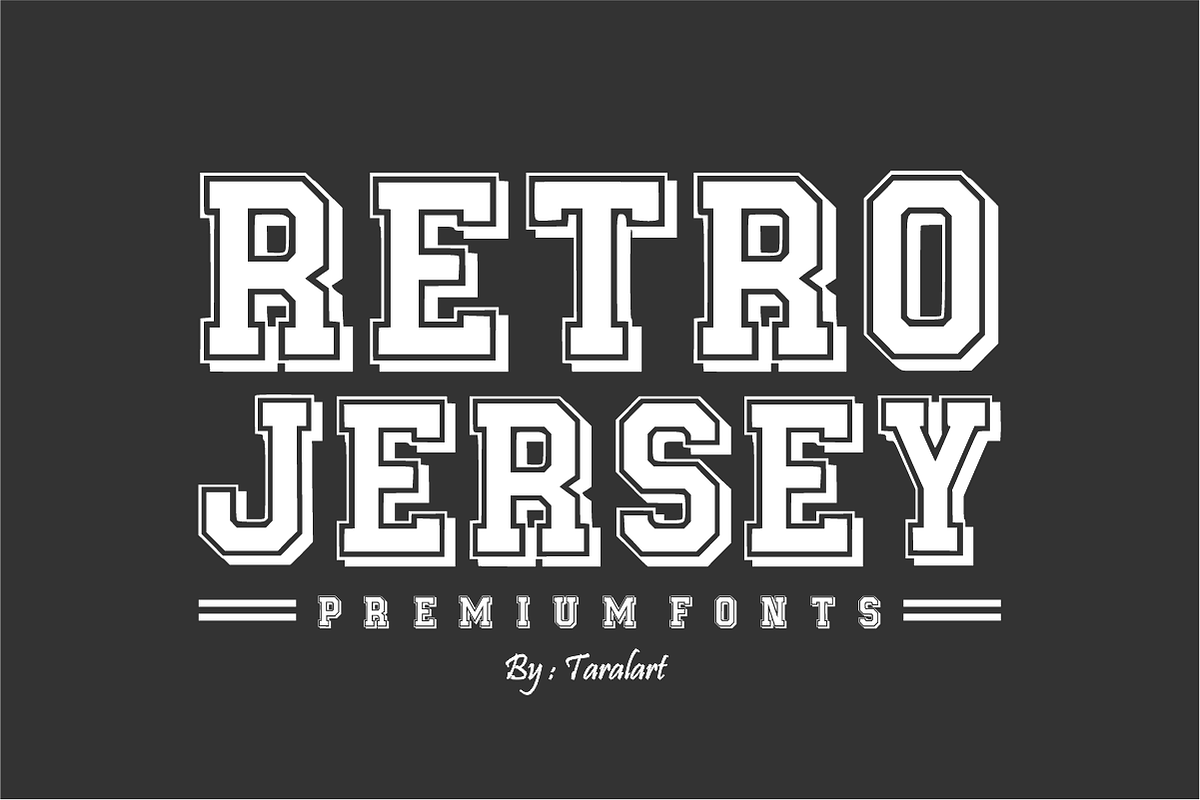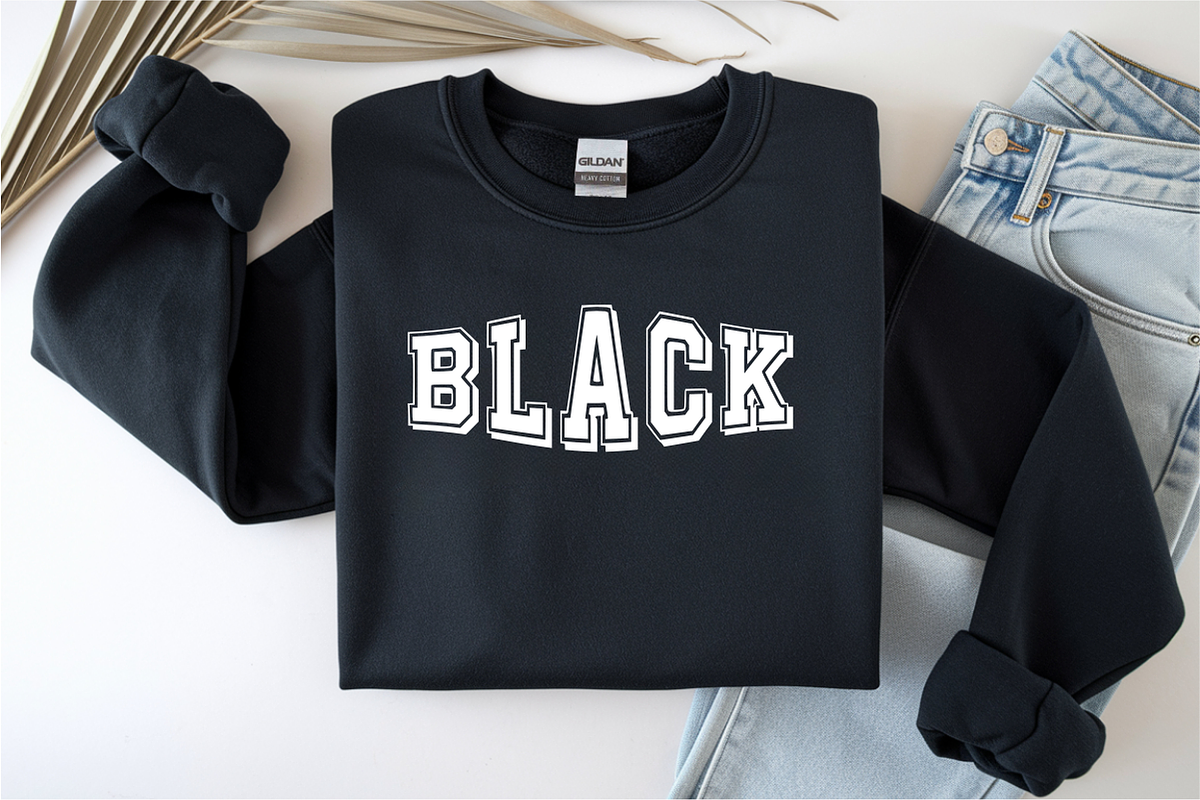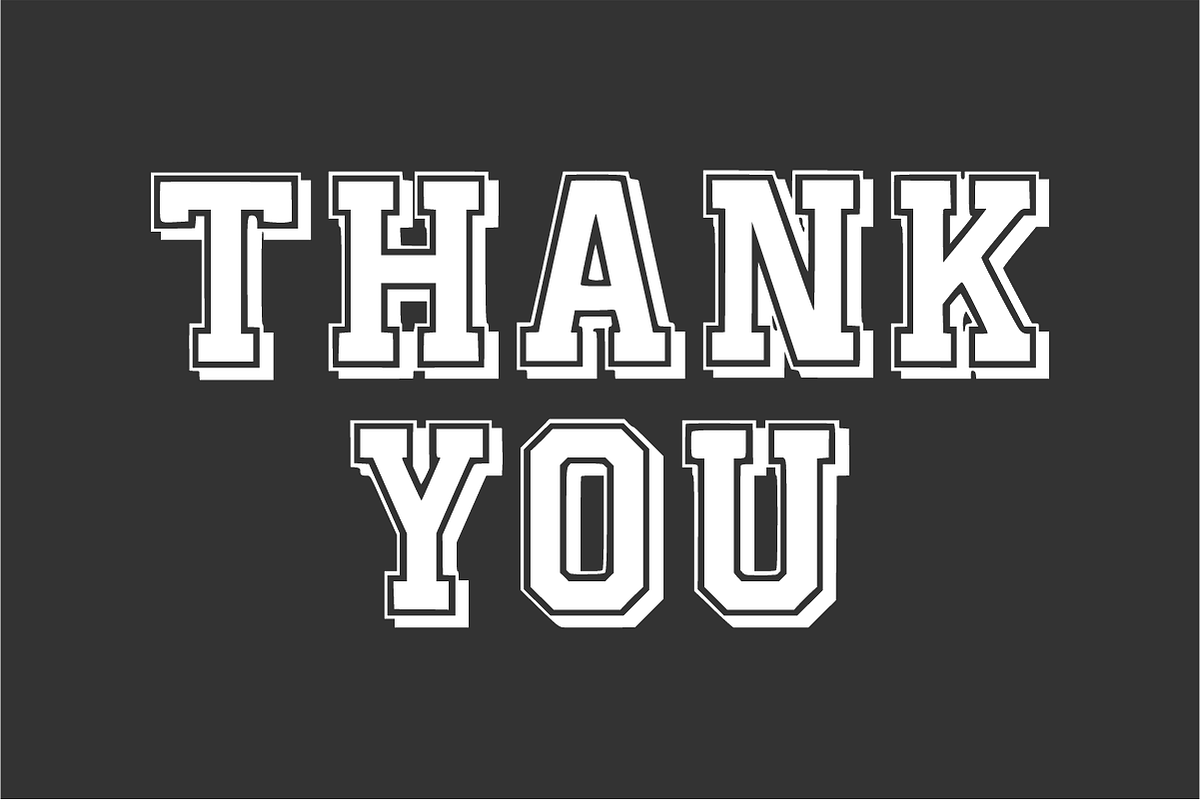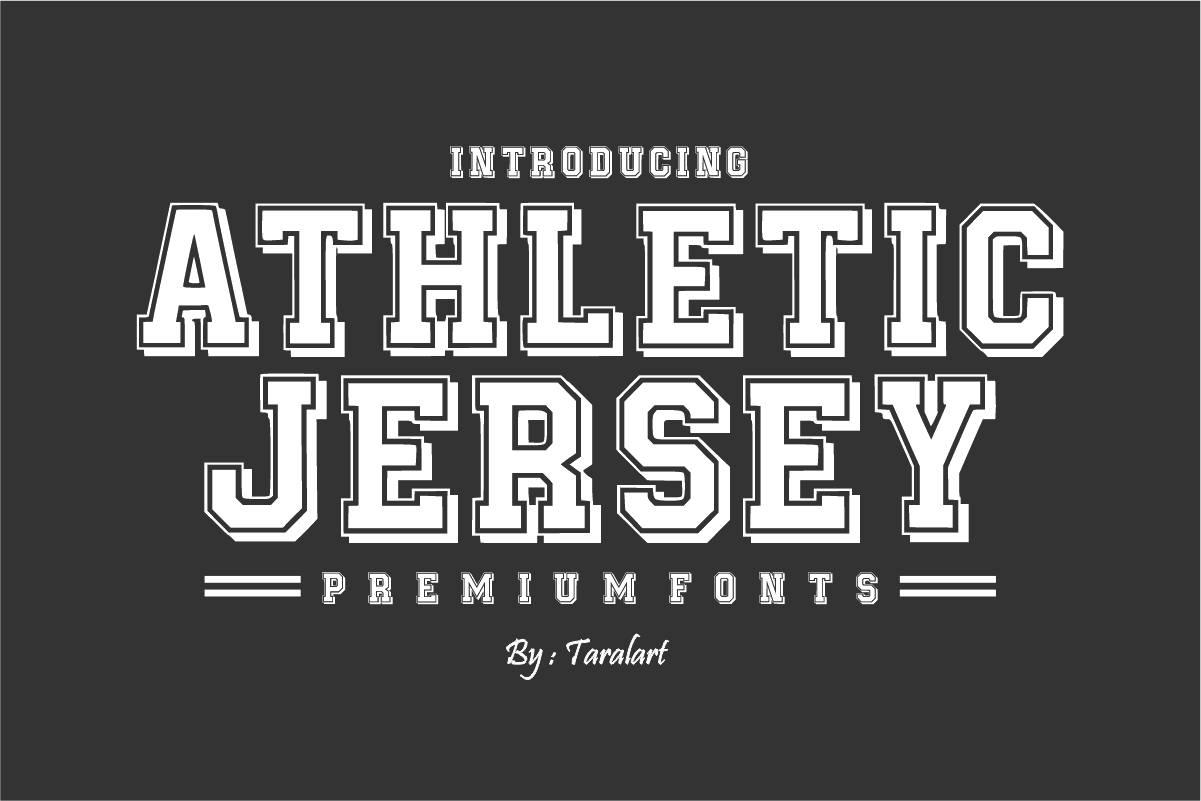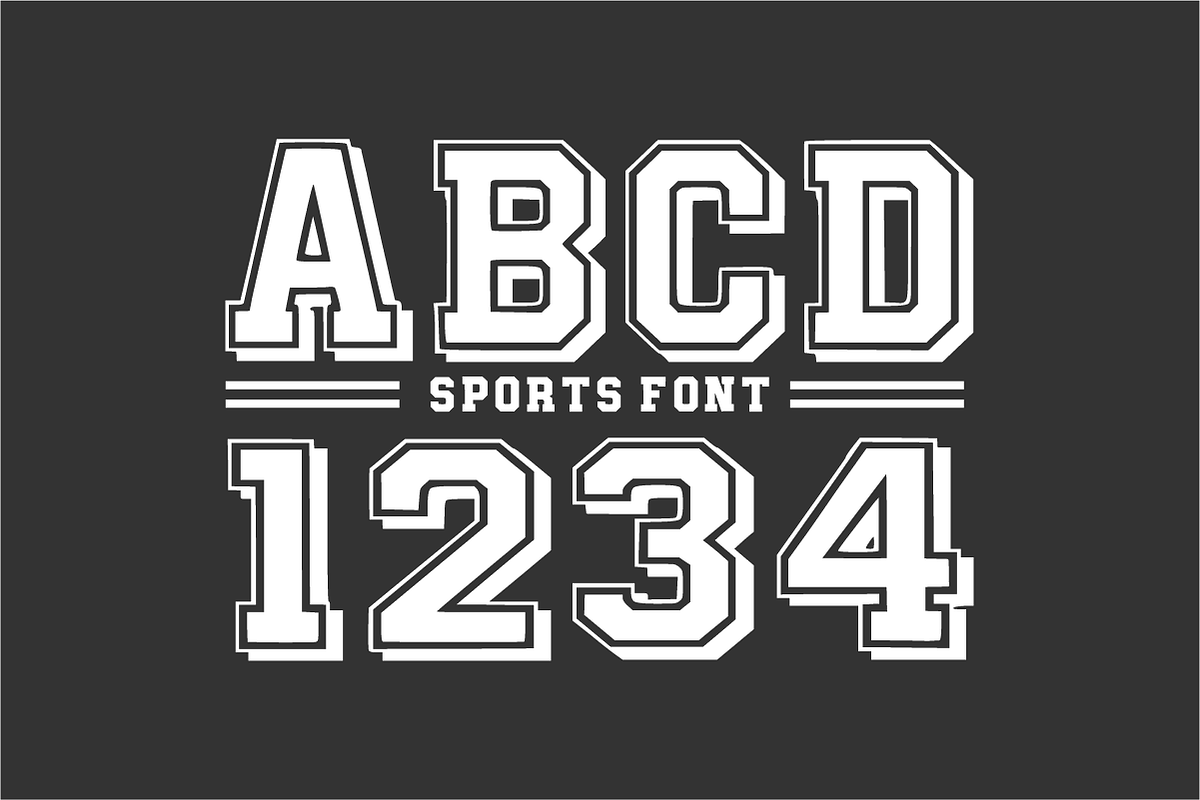
Athletic Jersey - Varsity Font
Bring a premium, timeless collegiate energy to your designs with Athletic Jersey! This bold display font features a classic varsity block layout combined with a sharp, clean inline stroke effect. It’s the ultimate choice for designing high-impact team logos, authentic sports merchandise, and varsity-style apparel that looks instantly professional and elite.
Perfect for independent clothing brands, sporting events, and trend-focused tailoring or sublimation crafts, Athletic Jersey delivers crisp line work and excellent legibility. It is highly versatile, cuts beautifully on digital cutting machines like Cricut, and is fully optimized for a flawless finish across all professional design software and print setups.
All-Caps Character Set (Bold, premium block letters with a classic inline varsity detail)
Numbers & Simple Punctuation (Essential, clean sports-style symbols and numbers included)
Team Jerseys, Sports Apparel, Varsity Jackets, & Streetwear Hoodies 👕
Athletic Club Logos, Fitness Branding, Gym Graphics, & Championship Posters 🏆
Cricut, Silhouette, & DIY Tailgate Craft Sublimation Projects ✂️
College Event Banners, Game-Day Invites, & Football Flyers 🏈
Custom Caps, Team Water Bottles, Sports Merch, & Product Packaging 🧢
High-Impact YouTube Thumbnails, Sports Vlogs, & Bold Social Media Layouts ✨